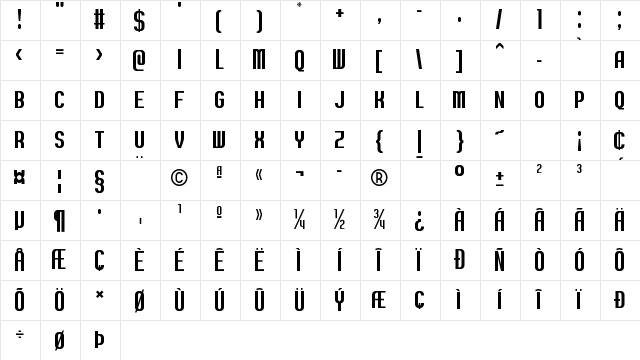
Balhattan Regular
Foundry: GGBotNet
Designer: GGBotNet
Balhattan Family
Design Context for Balhattan
Balhattan is a composed and adaptable typeface that performs quietly and consistently across a wide range of design contexts.
Pro Tip: Use Balhattan in both headline and body roles to test its range before committing to a single application.